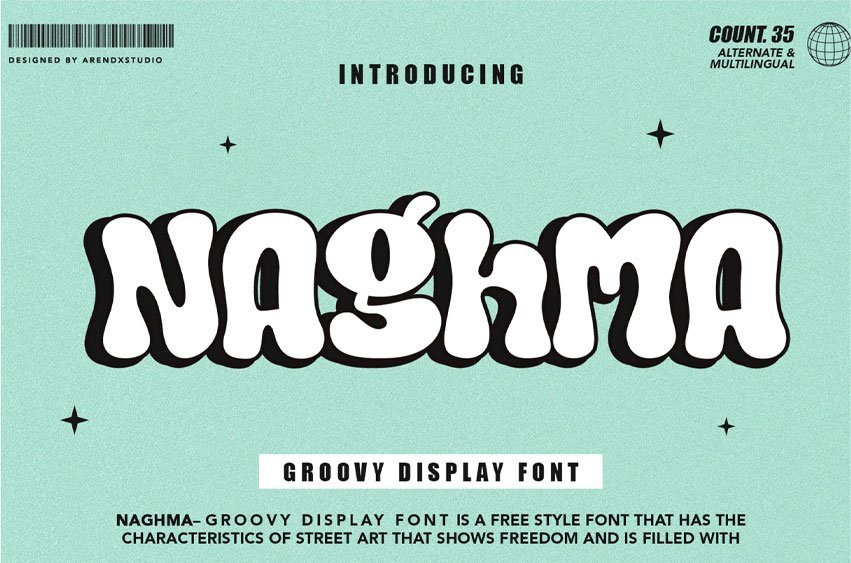
Naghma Font Groovy Display Font.
This is a freestyle font that has the characteristics of street art, which shows freedom and is filled with unique characters.